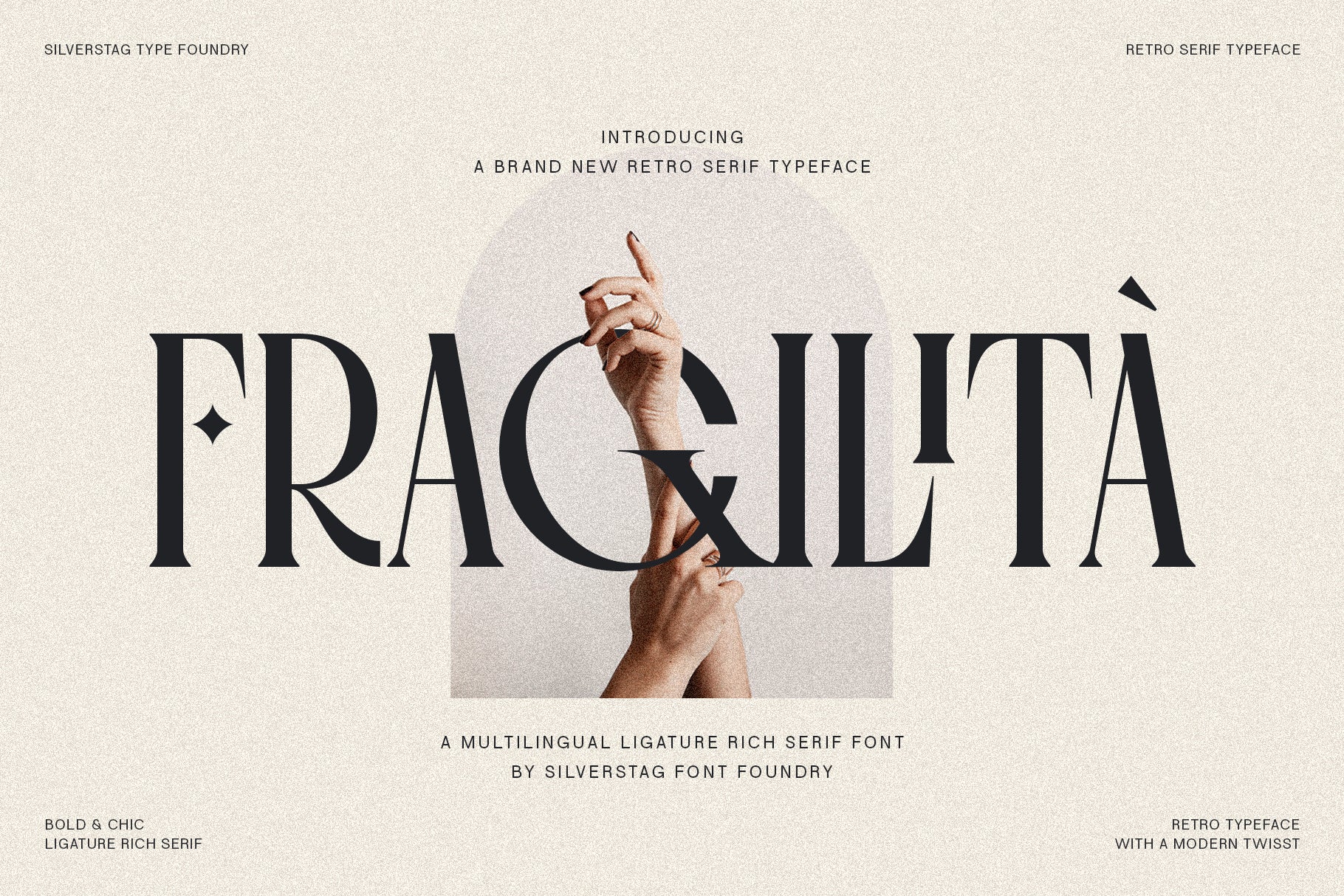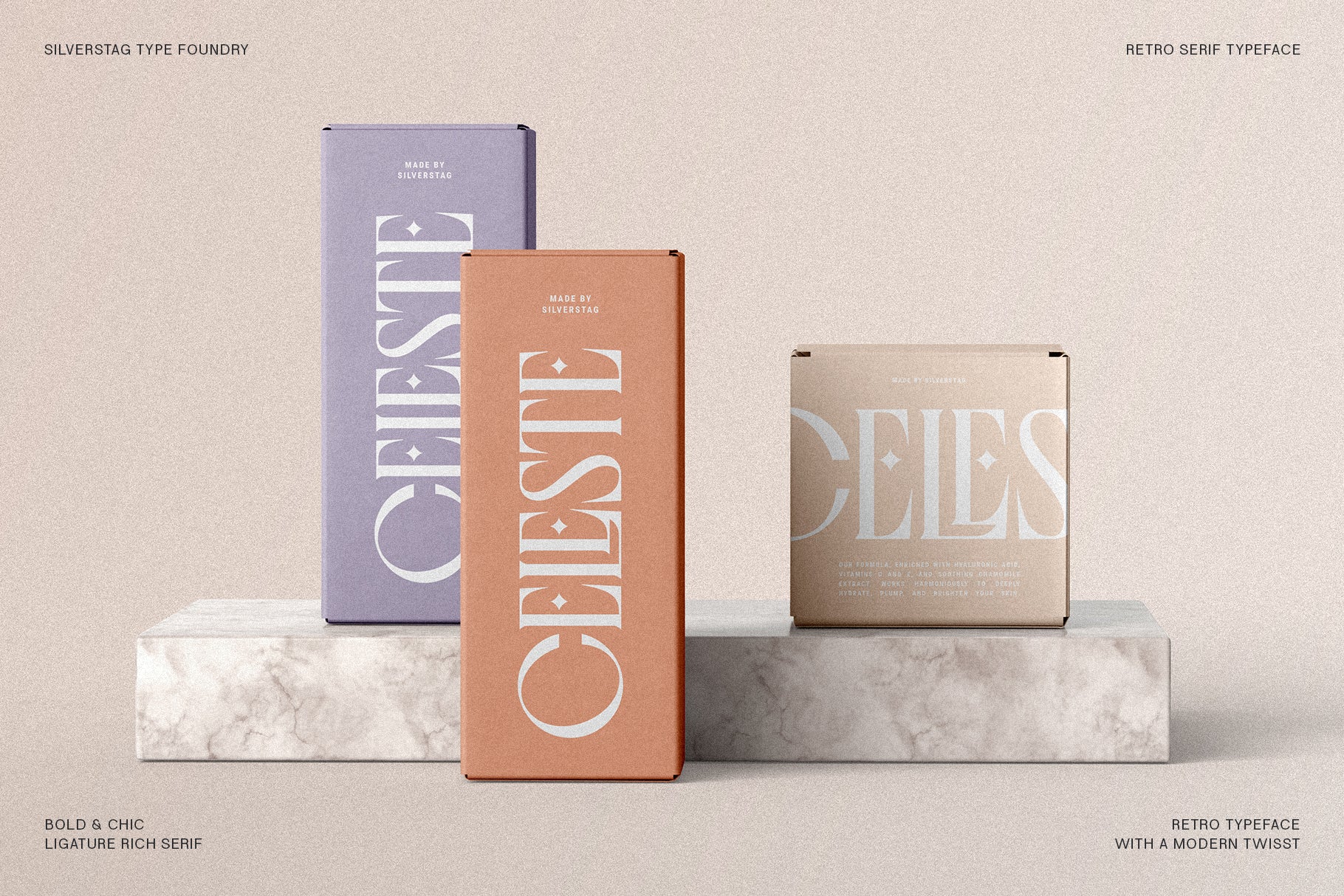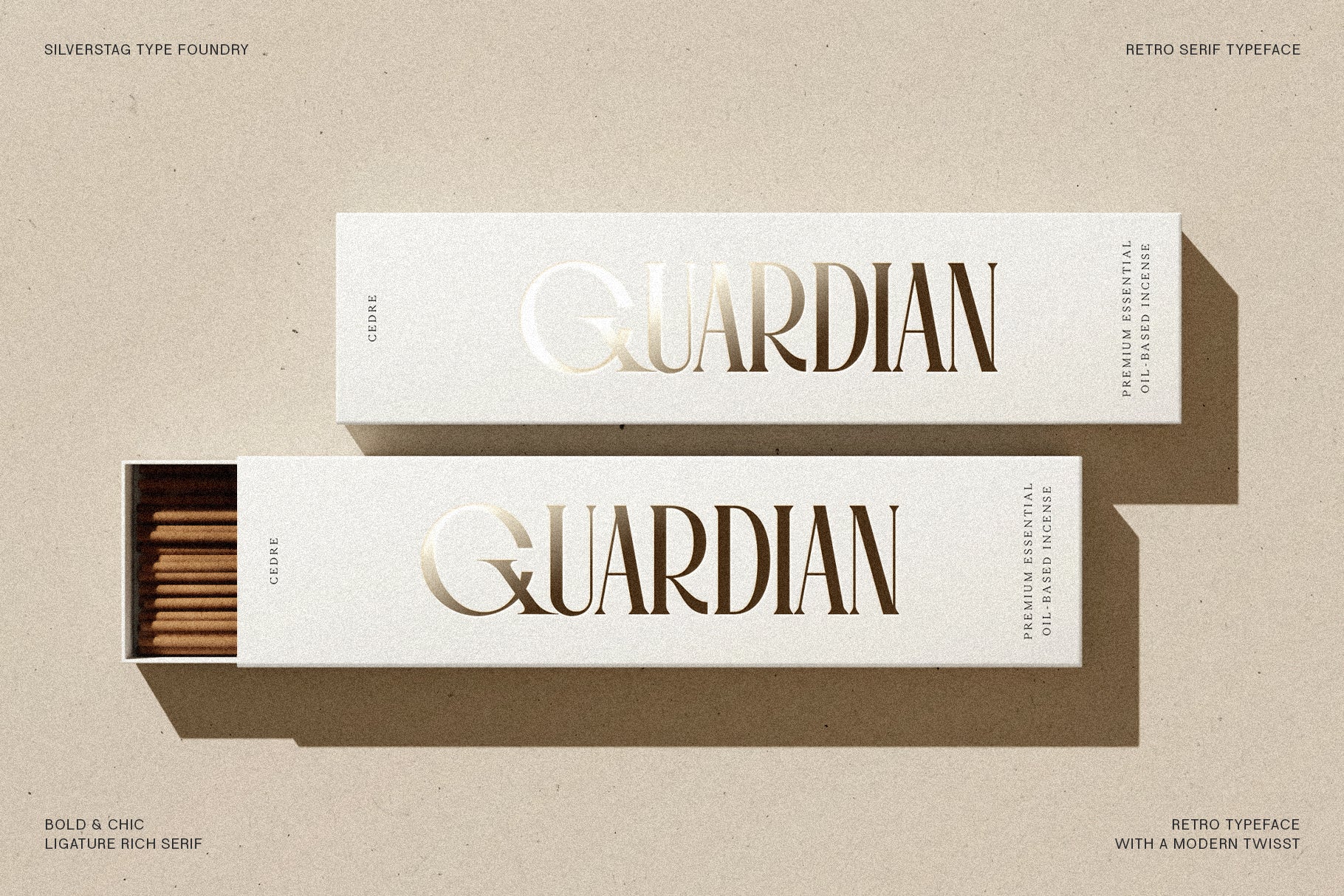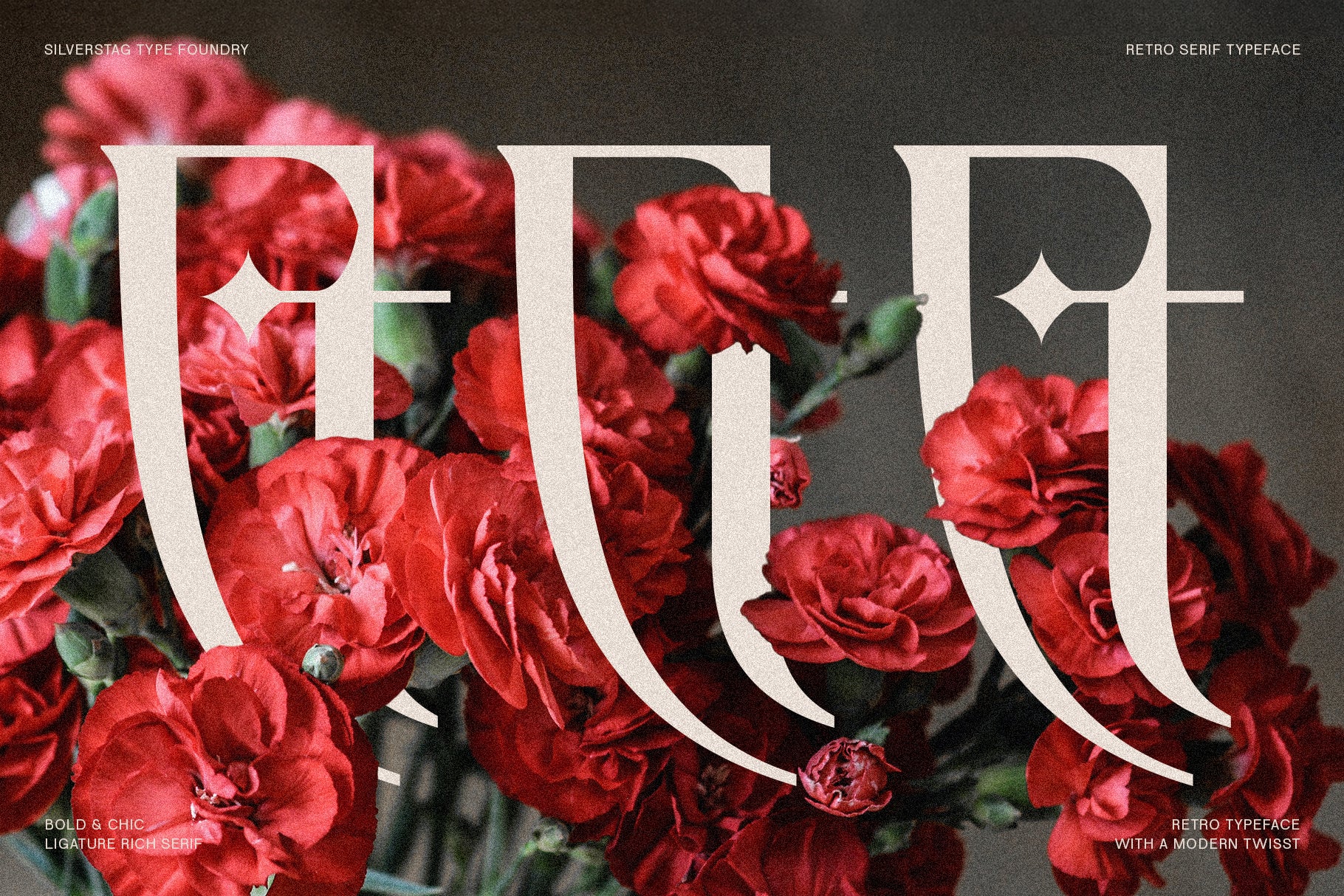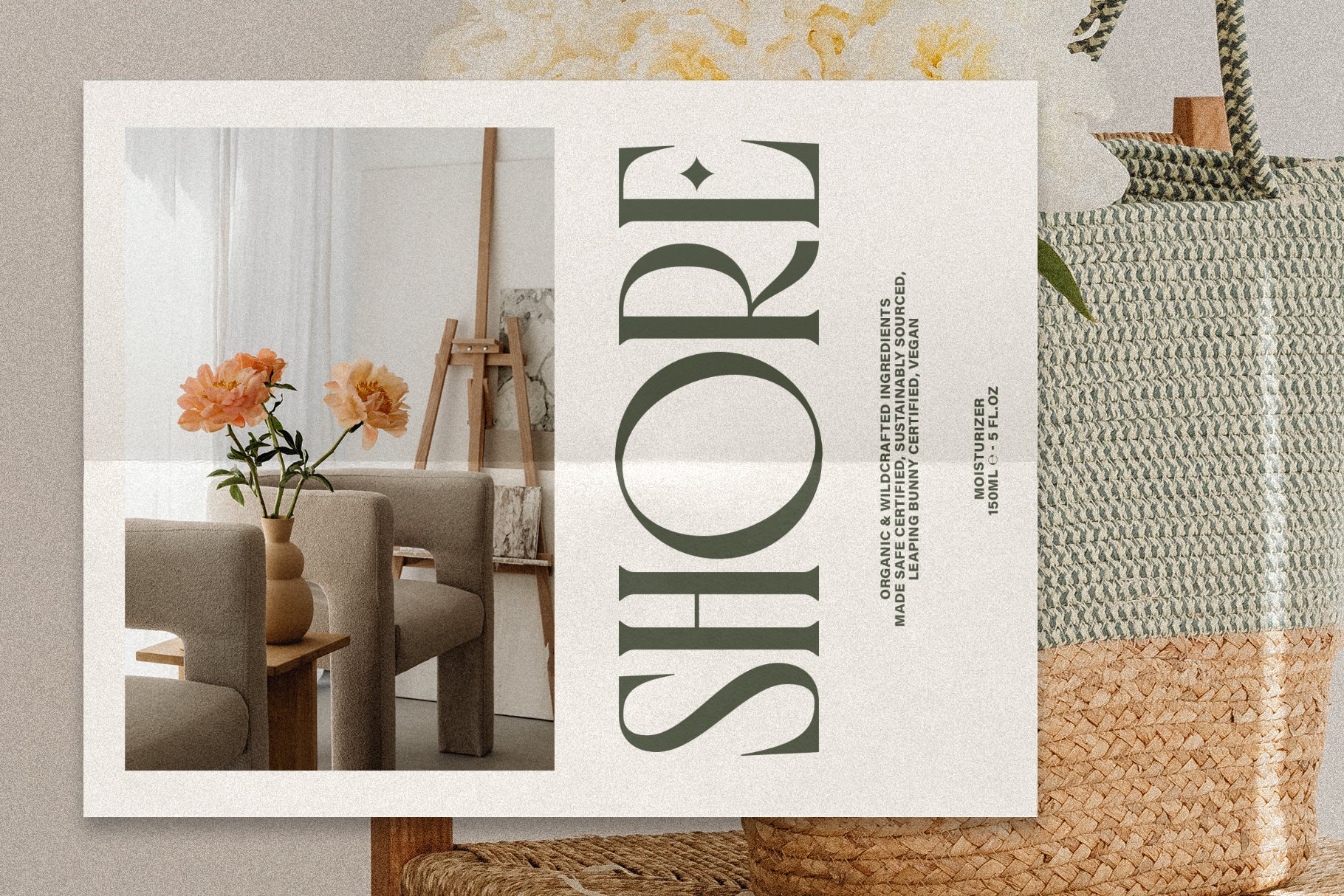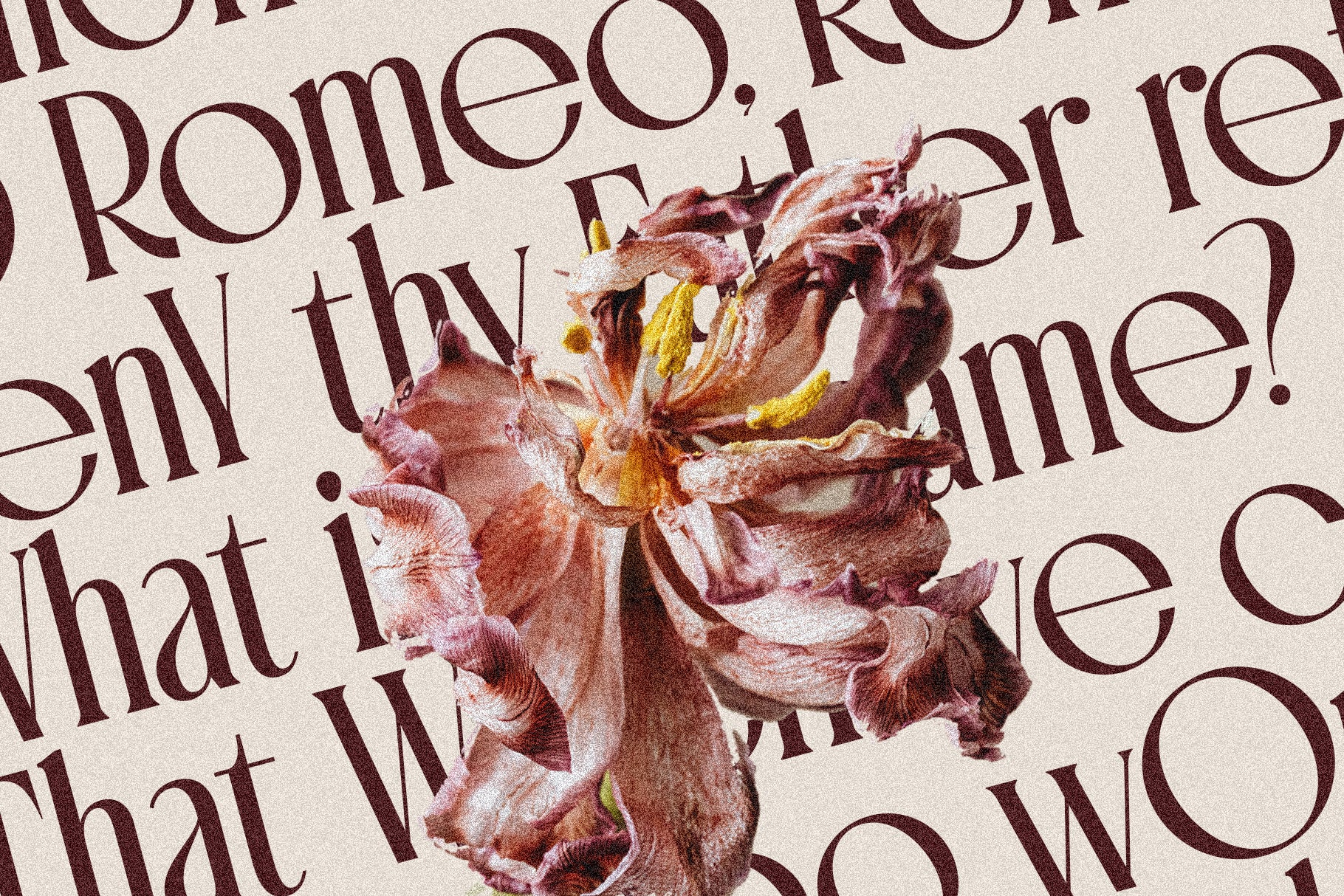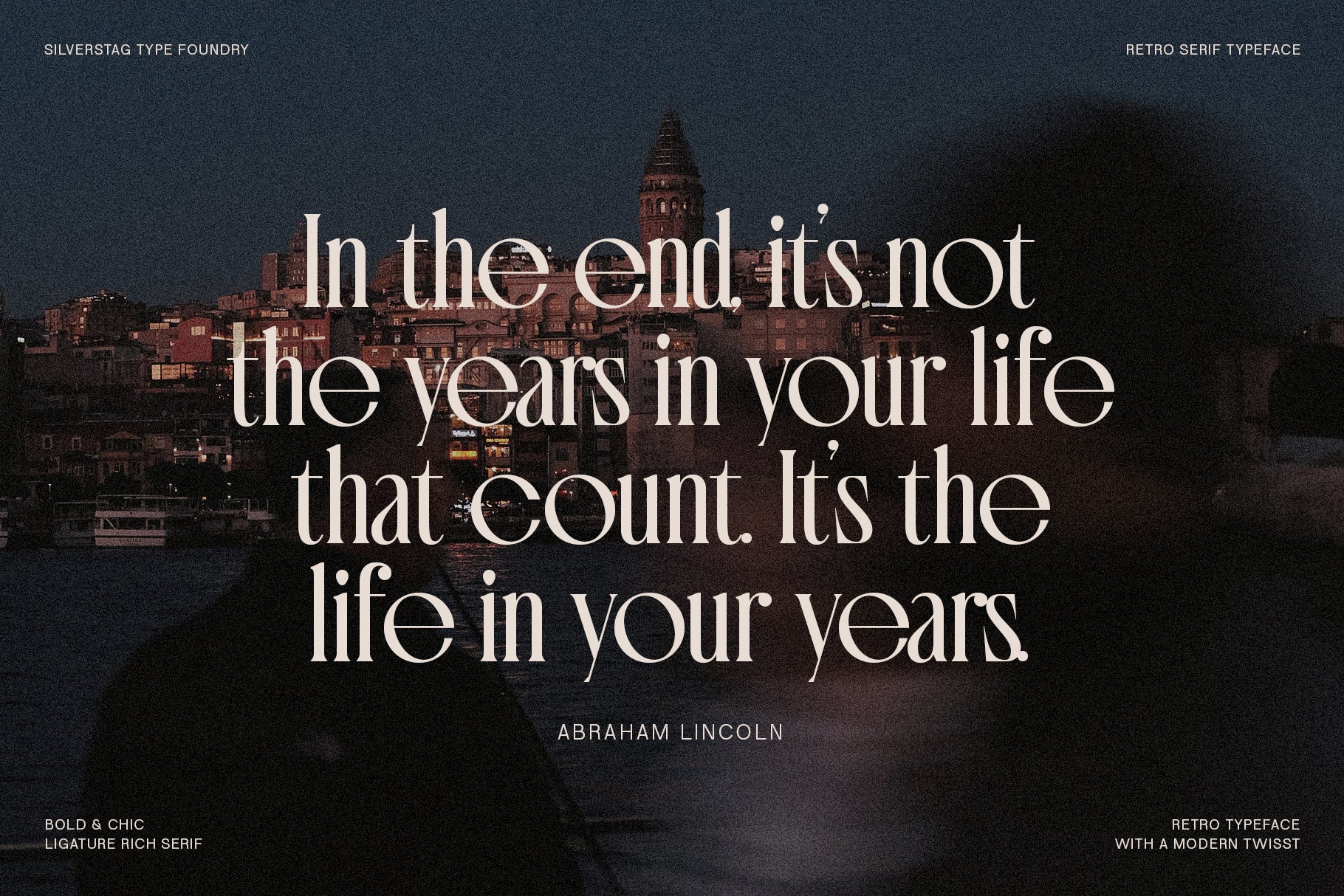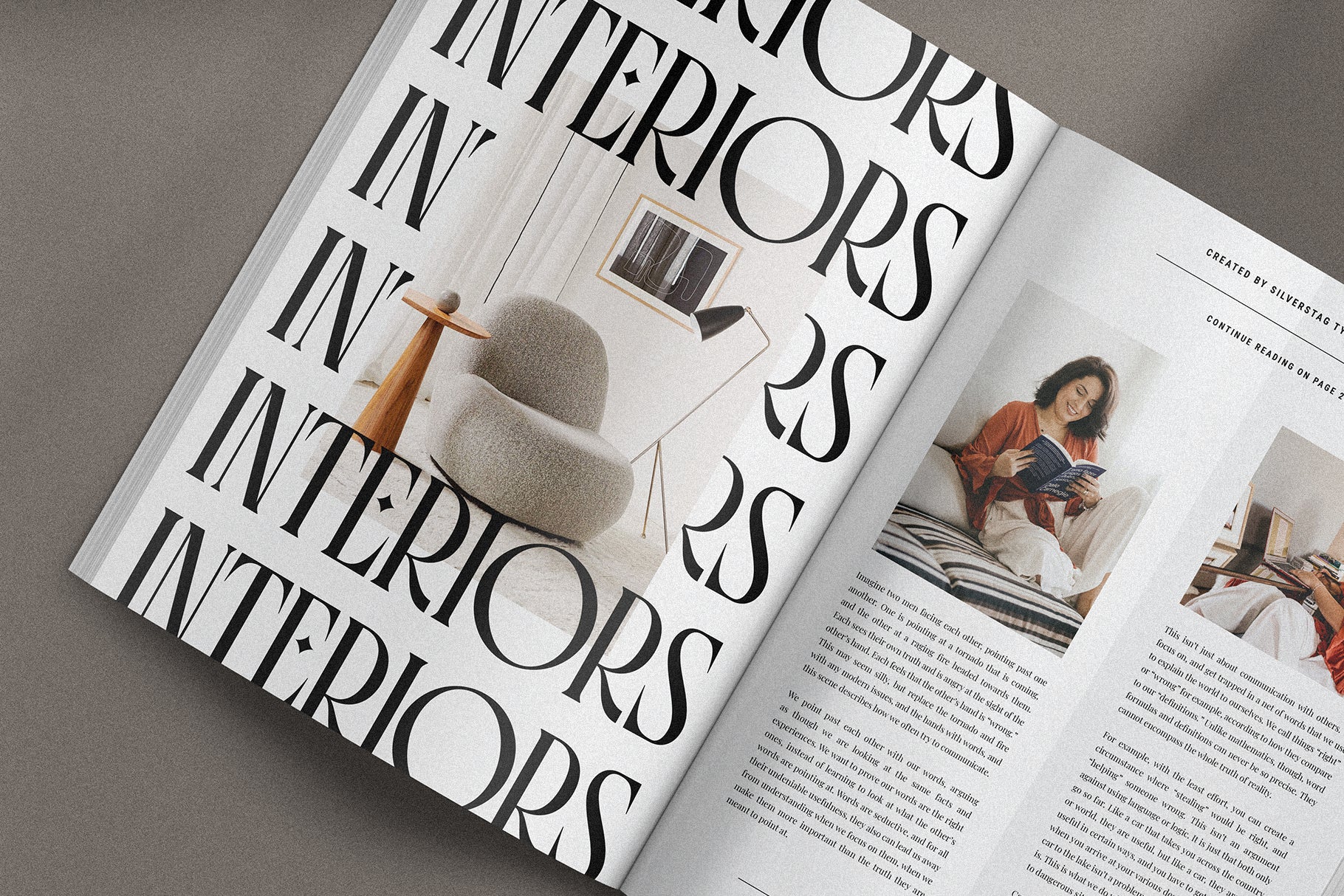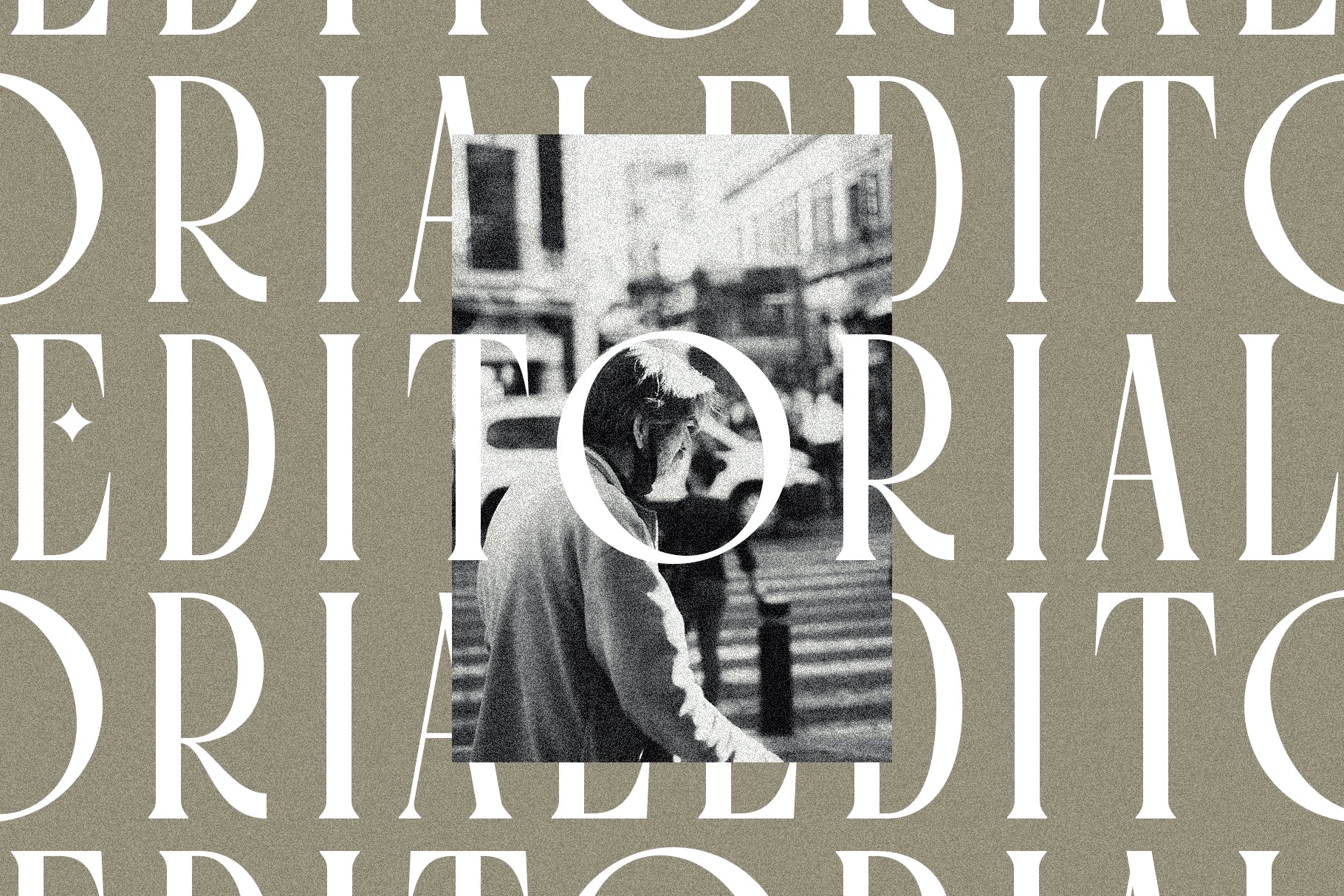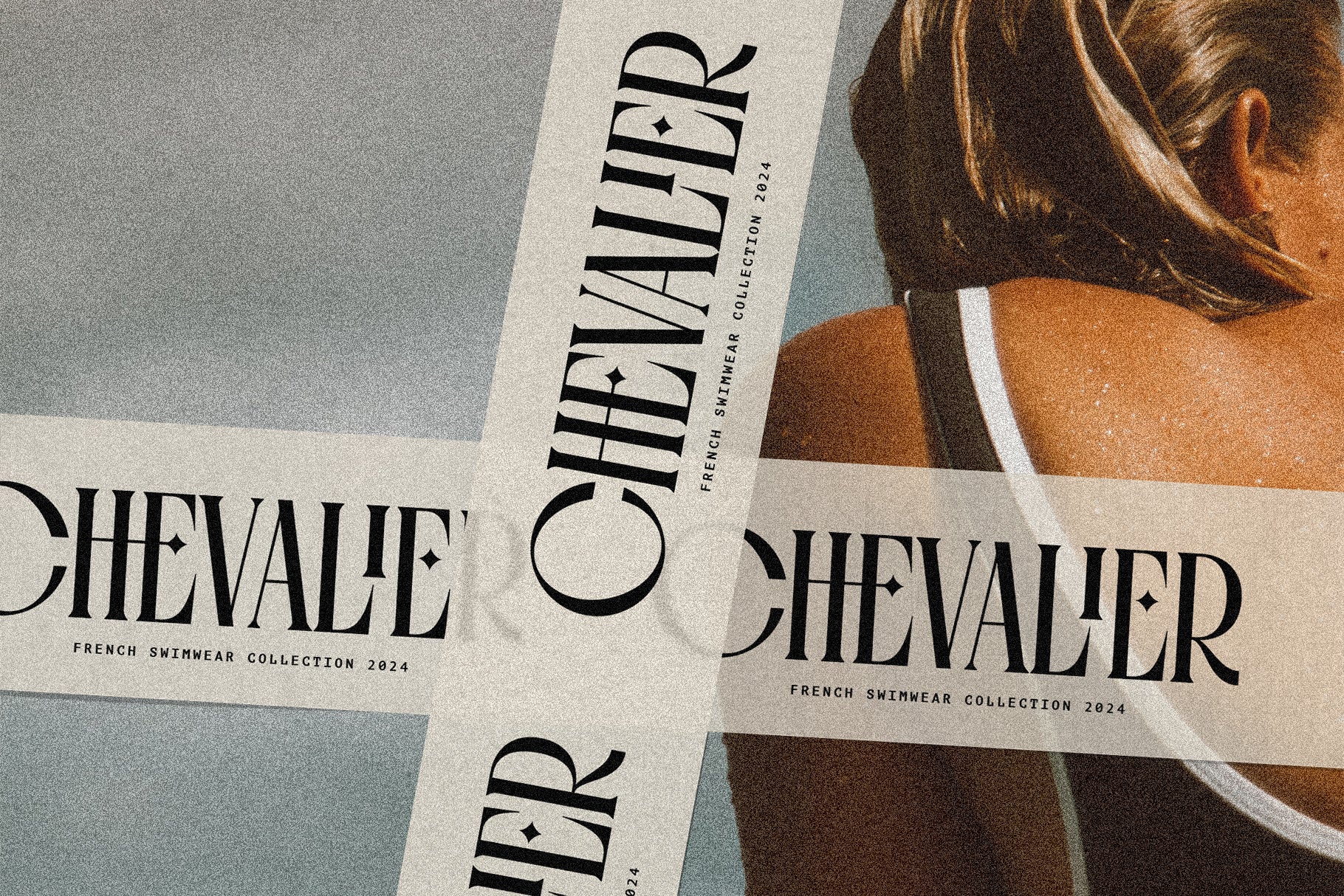
Fragilità is a high-contrast serif font that gracefully blends vintage charm with modern sophistication. With its condensed proportions, elegant ligatures, and full circular letterforms like O, Q, and C, Fragilità brings a refined, retro-inspired voice to contemporary design.
This typeface is designed for visual storytelling—its tight letterspacing, delicate curves, and strong vertical strokes make it ideal for editorial layouts, fashion branding, packaging, and nostalgic design with a modern twist.
Fragilità includes a rich library of custom ligatures that flow effortlessly within words, adding texture, rhythm, and elegance to your typography. Every character is crafted to balance beauty with legibility, making it suitable for both large headlines and elegant body text.
With support for over 90 languages, Fragilità adapts easily across cultures and platforms. Whether you’re working on a minimalist book design, a cinematic poster, or a refined visual identity, this font delivers personality, polish, and global accessibility.